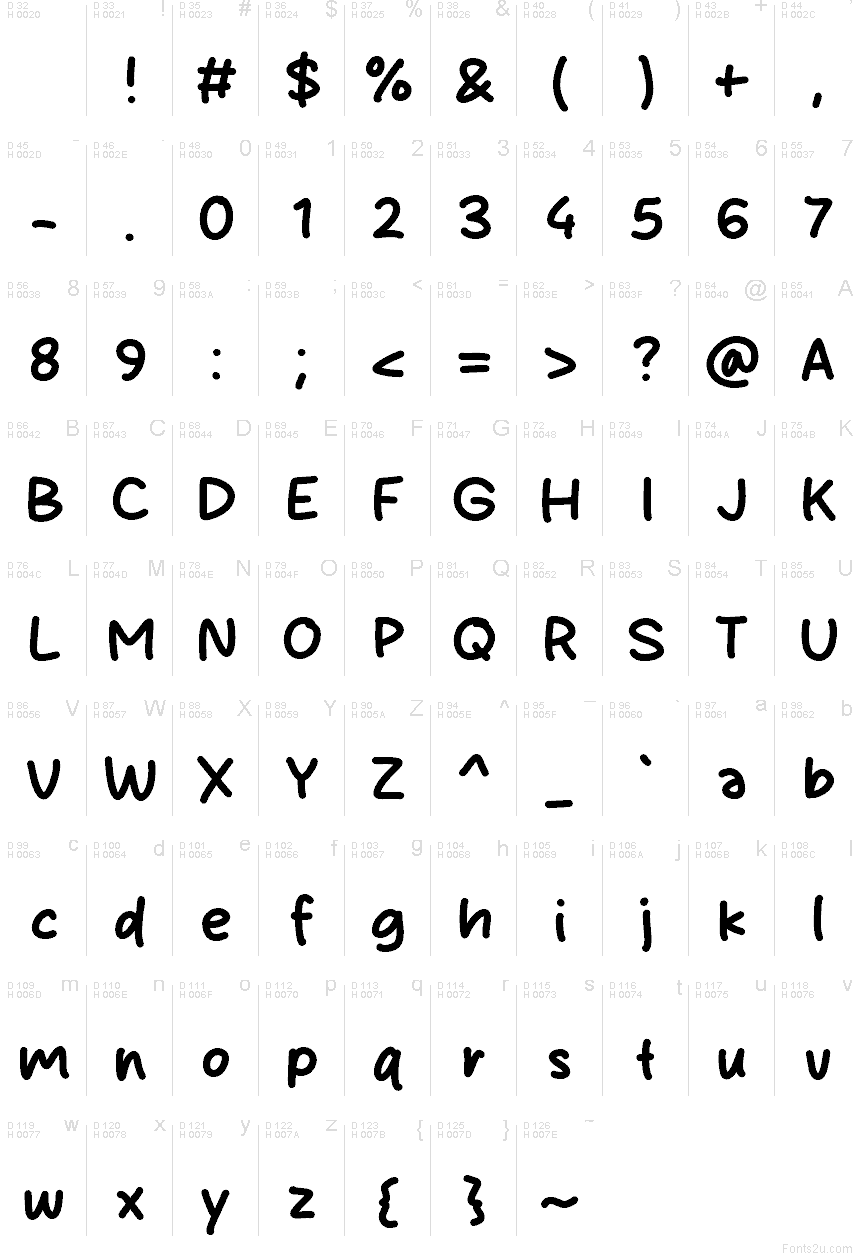
Melon Golden is a free handwritten display font from Origin Type. Its broad, rounded letters have soft corners and gently changing stroke widths, with small irregularities and a lively, uneven line along their tops that keep the forms looking drawn rather than engineered.
Creating a cheerful hand-lettered label is its most convincing role, especially for bakery packaging, cafe branding, and market-stall signage, where the generous forms suggest warmth and a relaxed welcome. It also suits children's publishing and casual event posters, since the buoyant shapes can echo illustrated fruit, sweets, or friendly family themes instead of acting as neutral lettering.